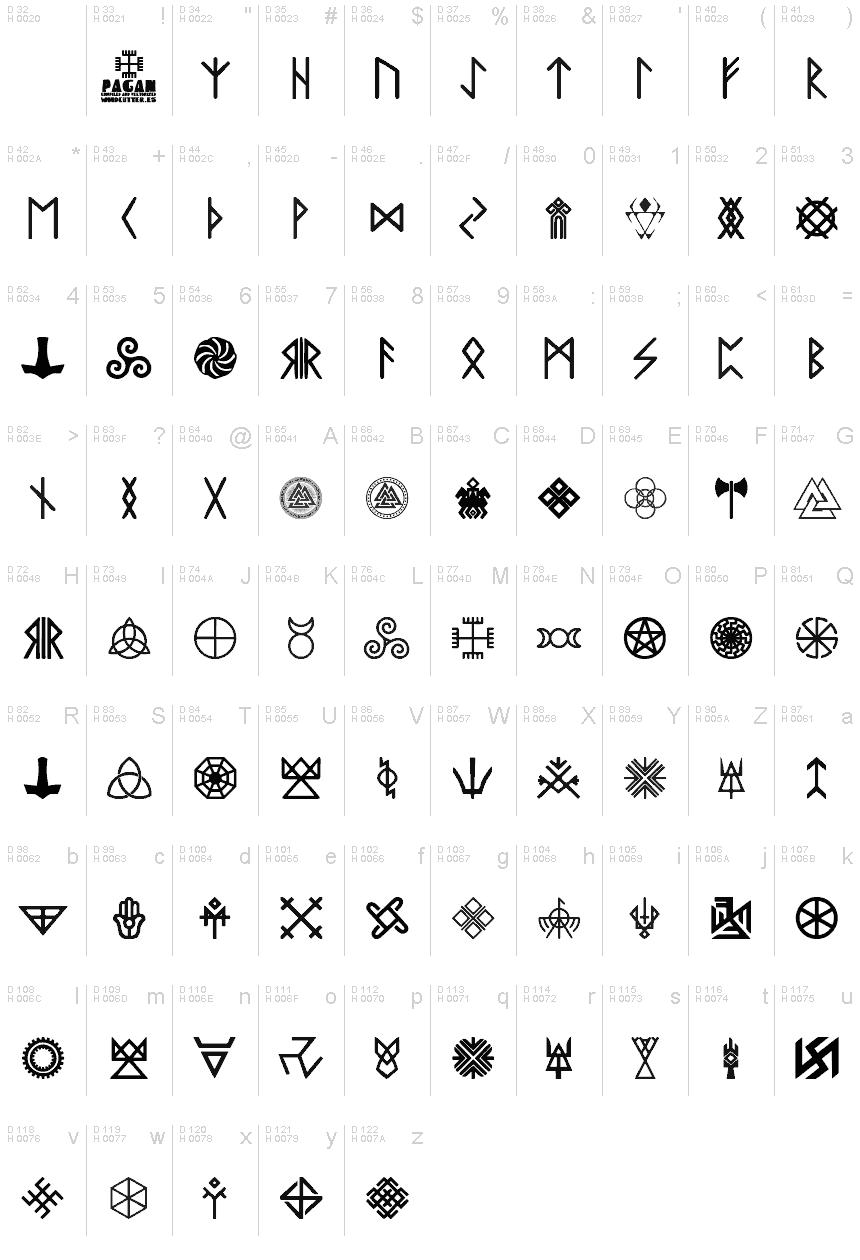
Pagan Symbols
Pagan Symbols, a dingbat font crafted by Woodcutter, exudes a captivating mystical essence. Its abstract, minimalist symbols evoke a sense of ancient rituals and spiritual practices.
The clean, geometric shapes and sharp angles convey a striking, almost primal aesthetic, while the variety of symbols - from circles and triangles to crosses and runes - offer a versatile design toolkit. This font's unique character lends itself well to a range of applications, from branding and packaging to editorial design and art projects, imbuing them with a distinct, otherworldly flair.
Pagan Symbols' distinctive visual language invites the designer to explore the intersection of the sacred and the contemporary.